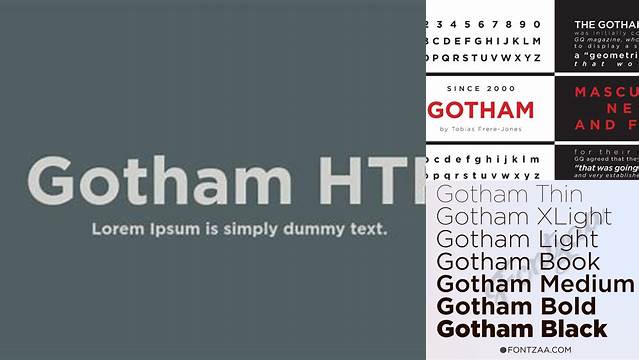
Understanding the Appeal of the Gotham HTF Font Family
The Gotham HTF font family is more than just a typeface; it's a design icon. Created by Tobias Frere-Jones and released by Hoefler & Co., Gotham quickly gained popularity for its geometric sans-serif style. Its clean, straightforward letterforms give it a distinctly modern look. This is why it's a favorite of designers worldwide. The Gotham HTF font family became extremely popular because of its use in various branding campaigns, including the Barack Obama presidential campaign. This association with such a prominent event boosted its appeal and made it a symbol of modernity and sophistication. Its versatility is one of its core strengths. It works exceptionally well in both headings and body text, making it a go-to choice for various design projects. The range of weights and styles within the Gotham HTF font family further enhances its adaptability. Whether you're designing a website, a poster, or even a book, Gotham can adapt to your needs. Its legibility is another critical factor. In a world where clear communication is key, Gotham ensures that your message gets across effectively. Its simple, uncluttered design makes it easy to read at various sizes, which is ideal for any design that requires readability, whether printed or displayed on a screen. The geometric shapes and balanced proportions of the font give it a harmonious and visually appealing appearance, thus becoming a favorite among designers aiming for a minimalist aesthetic. It's a font that exudes elegance and professionalism, making it ideal for projects that require a polished look. The Gotham HTF font family isn't just about looking good; it's also about functioning well. It supports a wide range of characters and glyphs, so it is well-equipped to handle different languages and special symbols. This makes it a globally adaptable font, suitable for projects that extend beyond a single country or language. Its popularity also means it has strong community support. Designers and typographers often share their insights, tips, and tricks on using Gotham, which is an invaluable resource for those new to the font. The font's impact on design is undeniable. Its influence can be seen in many contemporary designs, and it will likely remain a top choice for designers for years to come. From websites to print materials, Gotham has a presence, which means that downloading the Gotham HTF font family is vital to expanding your design arsenal.
The History and Development of Gotham HTF
The creation story of the Gotham HTF font family is as interesting as the font itself. Tobias Frere-Jones designed it in 2000, inspired by the architectural signage of mid-20th century America. The goal was to create a geometric sans-serif font that was both clean and functional. This unique inspiration is reflected in Gotham's distinctive letterforms, which have a balance and precision often seen in architectural blueprints. The font was first commissioned by GQ magazine, where it was used for headlines. This initial use in a high-profile publication immediately brought it to the attention of the design world. The success of the Gotham HTF font family was almost immediate. Its clean lines and versatility quickly made it a favorite among designers. What truly sets Gotham apart is its geometric structure. The font is based on simple shapes and perfect circles, giving it a unique, modern look. This geometric approach makes it not only visually appealing but also incredibly versatile. The Gotham HTF font family has a variety of weights and styles, allowing it to be used in a diverse range of applications. From bold headlines to subtle body text, Gotham can adapt to many different design needs. One of the turning points for Gotham was its use in the Barack Obama presidential campaign in 2008. This association boosted its popularity and cemented its place in modern design. Seeing Gotham in such a high-profile context helped establish it as a symbol of modernity and leadership. The association gave it a level of recognition that few other fonts achieve. Beyond politics, Gotham has been embraced across various industries. Its clean lines and versatile nature make it perfect for everything from corporate branding to website design. Its widespread use is a testament to its adaptability and appeal. The designers behind Gotham understood the importance of versatility. They created a font that could be used across a variety of media, making it ideal for designers. Gotham's legacy will be its enduring versatility and its ability to meet the ever-changing needs of designers. It's not just a font; it's a design tool that adapts to new design trends.
Gotham HTF Font Styles and Weights: A Detailed Overview
The Gotham HTF font family is celebrated not just for its core design but also for its comprehensive range of styles and weights. This extensive variety is one of the reasons it is such a versatile and adaptable font. This range of options allows designers to tailor the font to their needs. At the heart of the family, you'll find the standard weights: light, regular, medium, bold, and black. Each weight has its own unique character and purpose. The lighter weights are perfect for body text, creating a sense of airiness and readability. The bolder weights, such as bold and black, are best suited for headlines and emphasis, providing a strong visual impact. Besides these core weights, the Gotham HTF font family offers a range of condensed and expanded styles. Condensed styles are great for saving space, making them useful for smaller areas. Expanded styles, on the other hand, work well for creating a more pronounced visual statement. This range of options allows for fine-tuning to achieve the perfect look. Each style within the Gotham HTF font family is meticulously crafted to maintain a cohesive look across all weights and styles. This consistency is one of its biggest strengths. Whether you're using a light or black weight, the overall aesthetic remains consistent, allowing for a unified design. Each character in the Gotham HTF font family is carefully designed, with attention to detail. The geometric design ensures that each letterform is balanced and visually appealing. This precision is noticeable in the font's elegant simplicity. The availability of different styles and weights means you can select what fits a specific design need. Each option will ensure consistency and that your message is clear. The designers of the Gotham HTF font family ensured a broad range of possibilities. You can use them in a wide range of design projects. The extensive choice of weights and styles enables designers to handle a multitude of creative needs, from small business cards to large billboards. The adaptability of the Gotham HTF font family is critical for a multitude of situations, proving its enduring value in the design world.
Practical Applications: Using Gotham HTF in Your Designs
The Gotham HTF font family has found its way into a variety of design applications. Its clean lines, versatility, and modern aesthetic make it a favorite. The font works wonderfully in branding and identity projects. Businesses and organizations use it to create logos, signage, and marketing materials. Its clean lines and balanced letterforms help establish a professional and modern image. Whether it's a corporate logo or a website, Gotham can boost your brand's image. Websites and digital interfaces benefit from Gotham's readability and clean design. Its straightforward letterforms make it easy to read on screens. Gotham is used in headings, subheadings, and body text, providing a cohesive and engaging visual experience. Its versatility also extends to the creation of mobile applications. For print media, Gotham is a great choice. Posters, brochures, and other printed materials benefit from its readability. Whether it's a headline or a paragraph, the Gotham HTF font family ensures the message gets across. The various weights and styles available also make it possible to achieve different effects. Gotham provides a professional and polished appearance. Its use in books and editorial design is also noticeable. The clear and simple design is perfect for long-form content. Magazines and books use Gotham in headings and body text. Its legibility ensures that readers can easily read the text. Using the Gotham HTF font family is a great way to achieve an approachable but professional style.